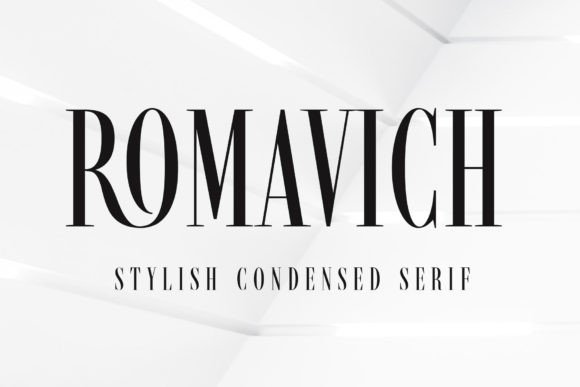
Prepare to be mesmerized by Romavich, an extraordinary condensed serif font designed to captivate and inspire. Its thin lines and bold serifs create a striking contrast that dances across your screens, leaving a trail of elegance and sophistication. Immerse yourself in the world of modern serif artistry as this font weaves its magic into your creative projects.
Romavich transcends boundaries, effortlessly adapting to a myriad of design endeavors. Whether you're crafting captivating magazines, alluring editorials, striking posters, or distinctive logos, Romavich is your steadfast companion. Its versatility empowers you to breathe life into wedding invitations, fashion statements, greeting cards, and captivating titles.
Embrace the grandeur of all-caps typography, enhanced by the subtle charm of small caps. Romavich grants you the freedom to compose elegant short texts and quotes that resonate with grace and impact. Delve into a treasure trove of alternates and ligatures, unlocking a world of possibilities to infuse your designs with a touch of refinement and originality.